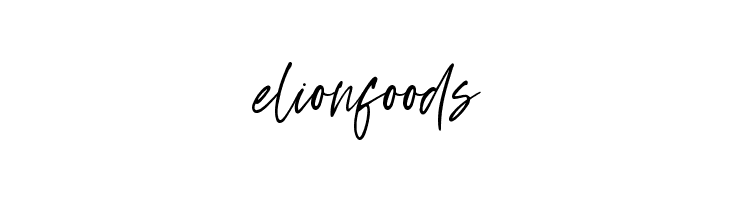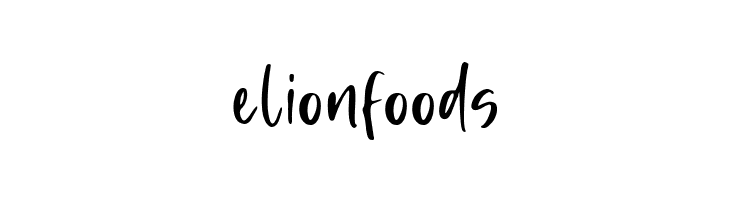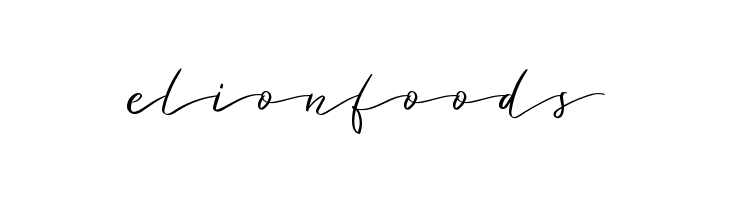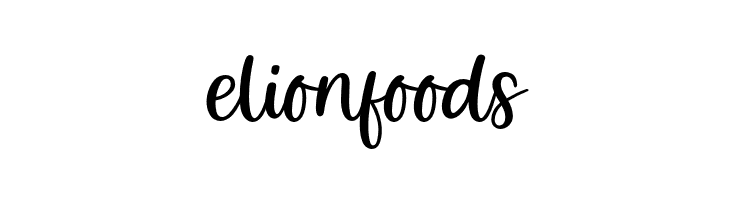
• Blessing Day
A lively, expressive script font with flowing, connected letters and dynamic strokes.
• Wednesday Vibes
A modern, handwritten font with a casual and expressive style.
• Sunday Snow
A playful and whimsical script font with a hand-drawn appearance.
• Friday Vibes
A playful, handwritten font with a casual and dynamic style.
• The Snowday
A bold, handwritten font with a playful and casual style.
• Sunday Smoothie
A playful, handwritten font with a casual and dynamic style.
• Thursday Vibes
A bold, brush-style handwritten font with dynamic, playful strokes.
• sunday monday
An elegant, flowing script font with a natural handwriting style.
• Hellofreeday Outline DEMO
A playful, hand-drawn outline font with a whimsical and casual style.
• Holiday Wishes
A playful and elegant script font with smooth, flowing letterforms.